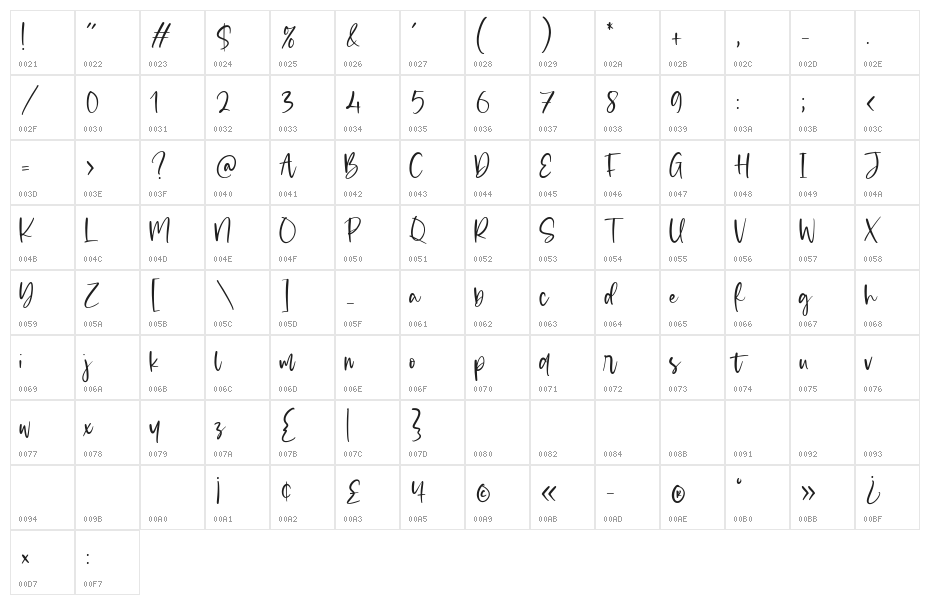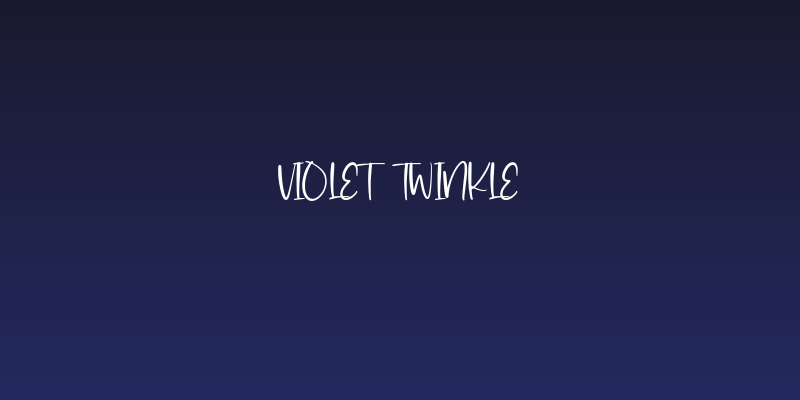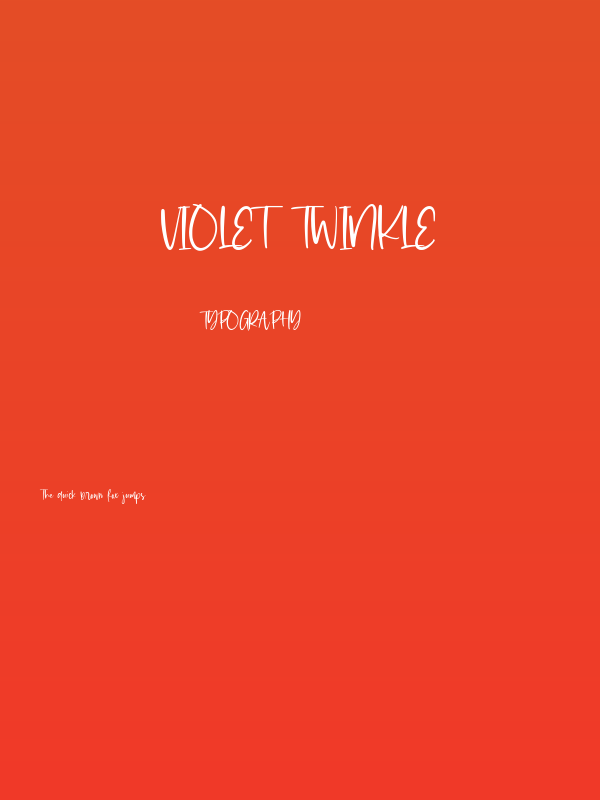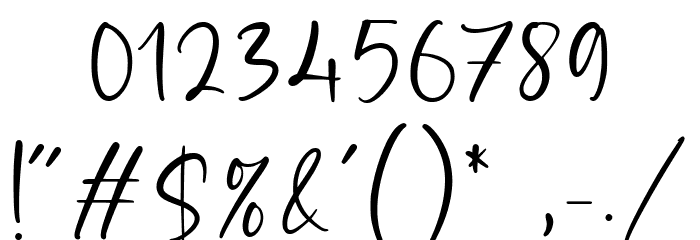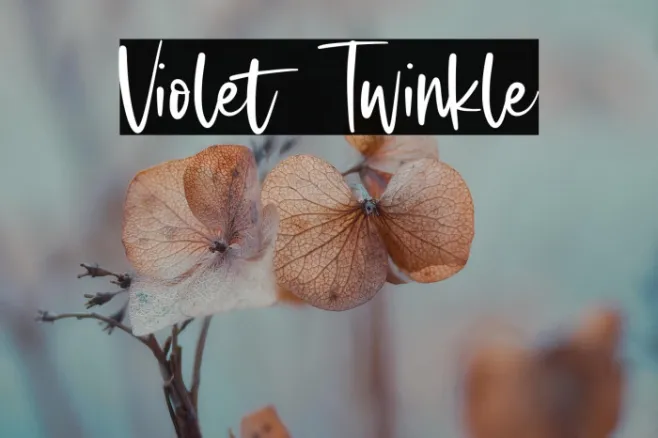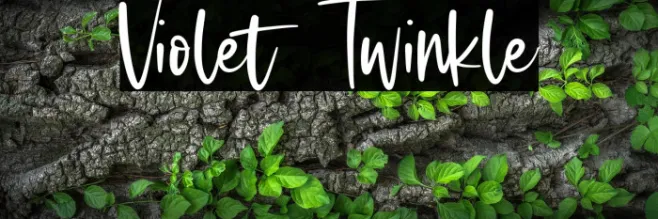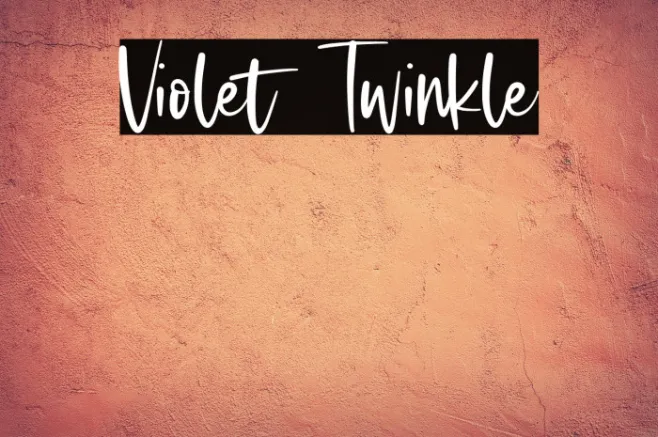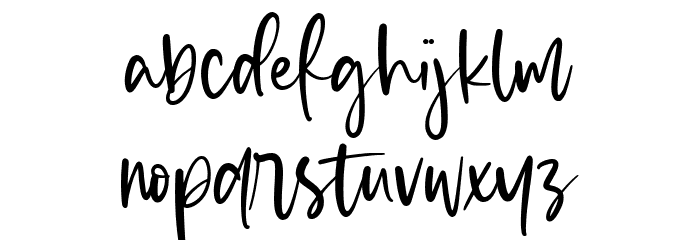
Violet Twinkle Font
Violet Twinkle Description
This font features a lively and expressive handwritten style, characterized by its fluid and dynamic strokes. The letters exhibit a playful yet elegant appearance, with varying stroke widths that add a sense of movement and personality. The uppercase letters are bold and slightly elongated, while the lowercase letters maintain a more compact and rounded form. The numbers and special characters are consistent with the overall style, offering a cohesive look. This font's unique charm makes it suitable for creative and artistic projects, where a personal touch is desired.